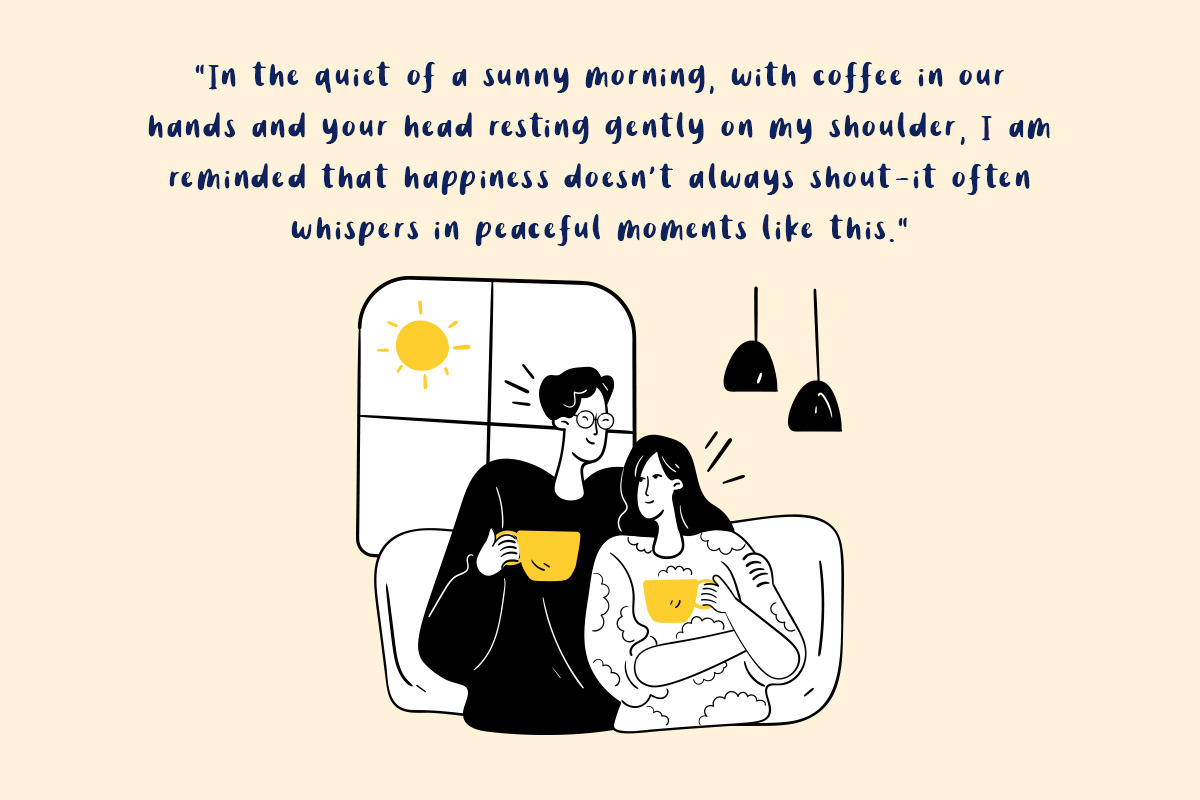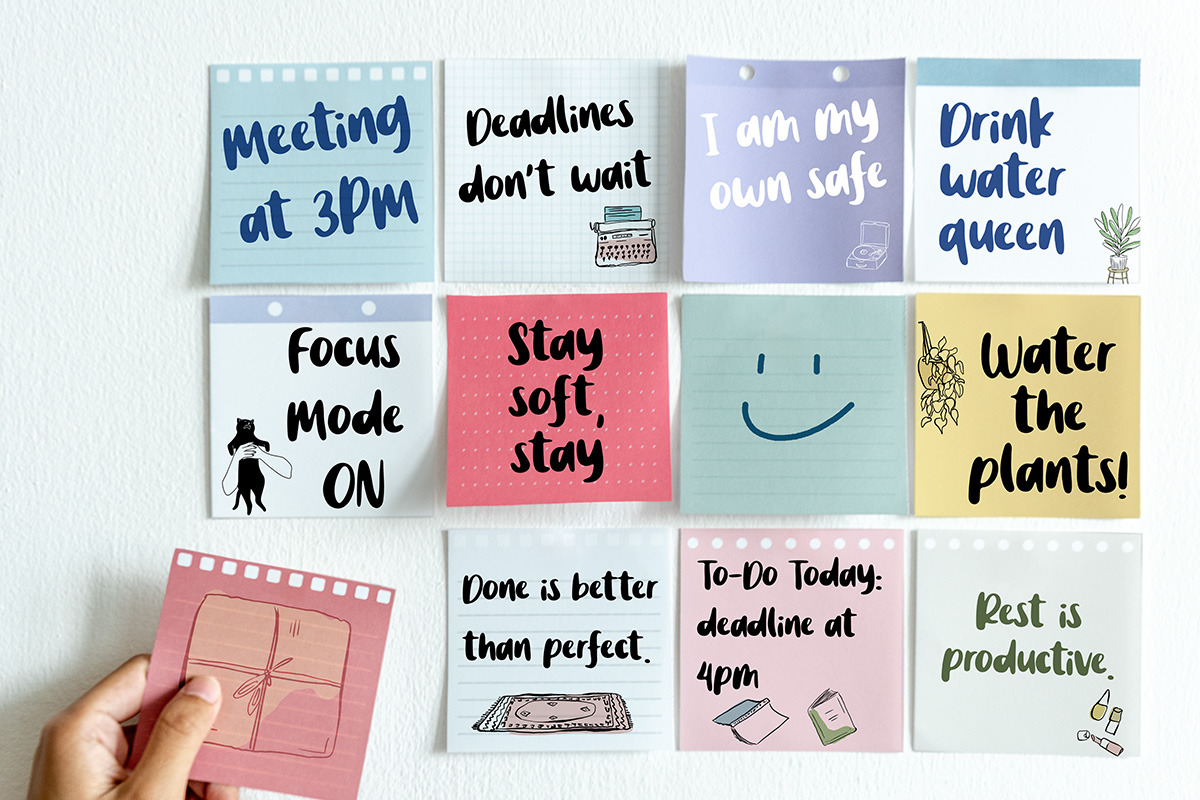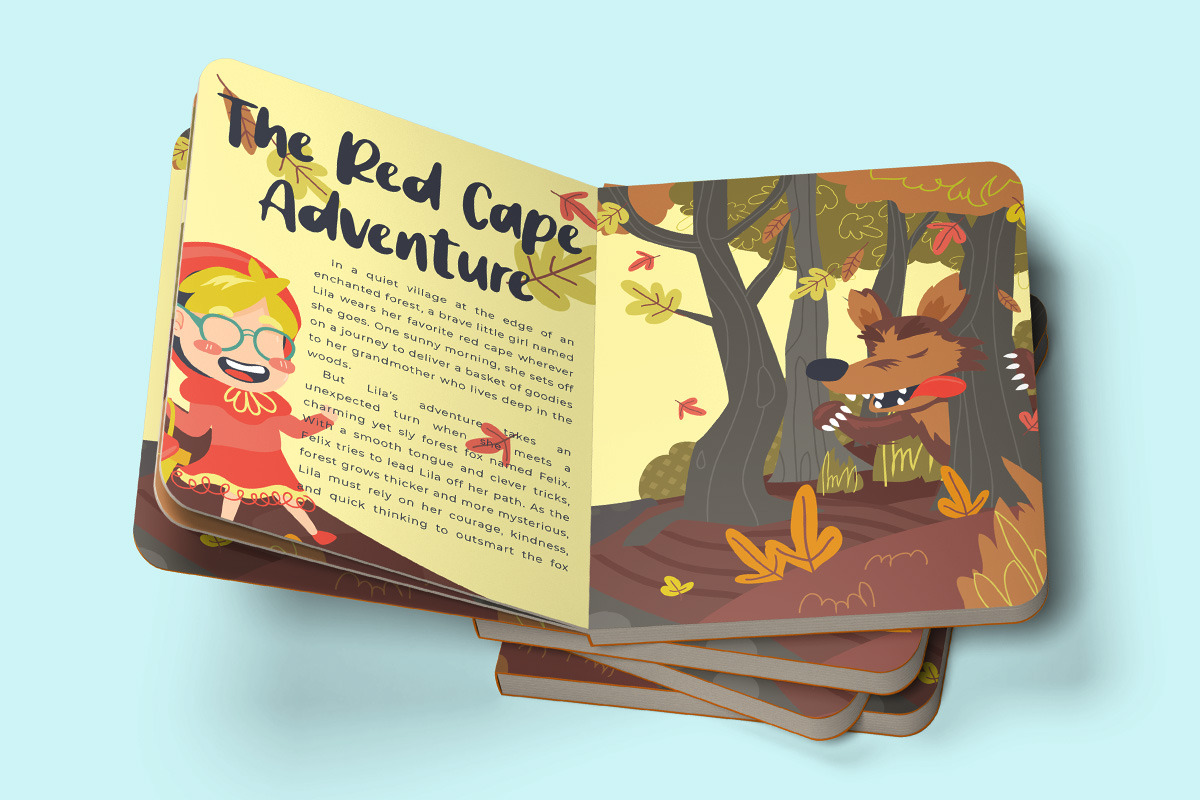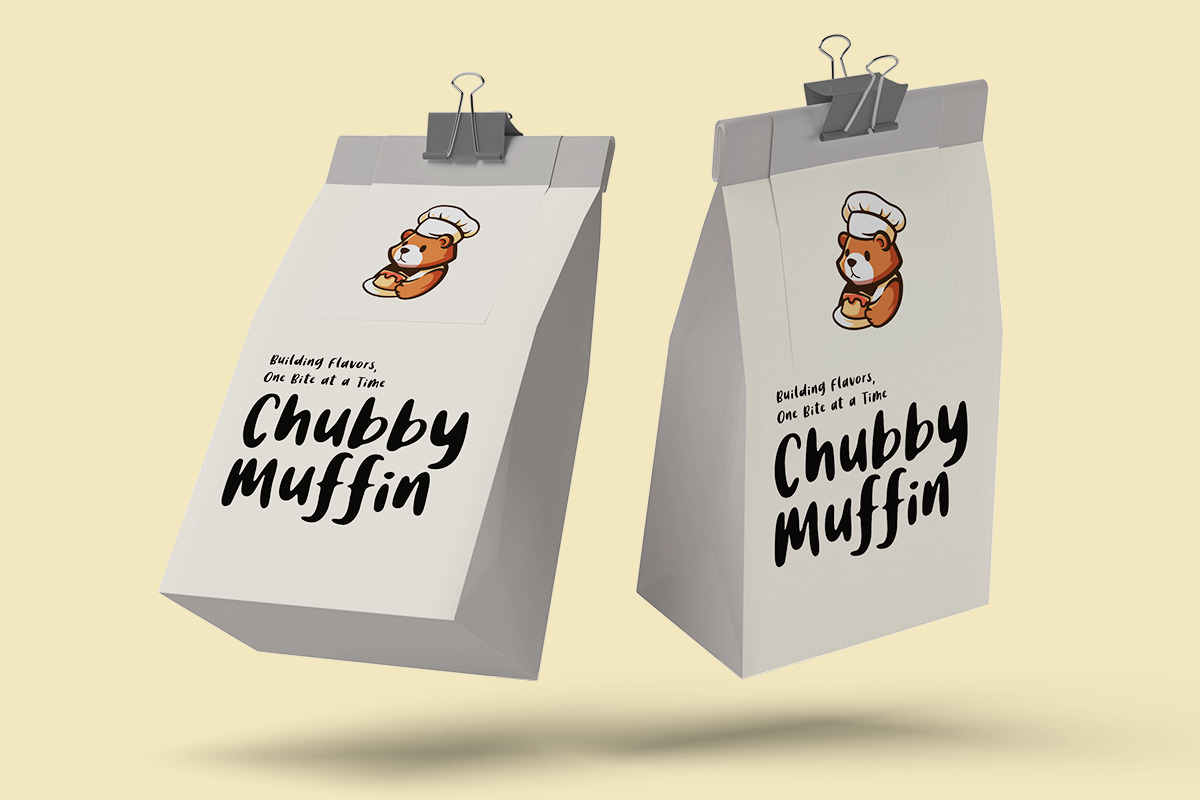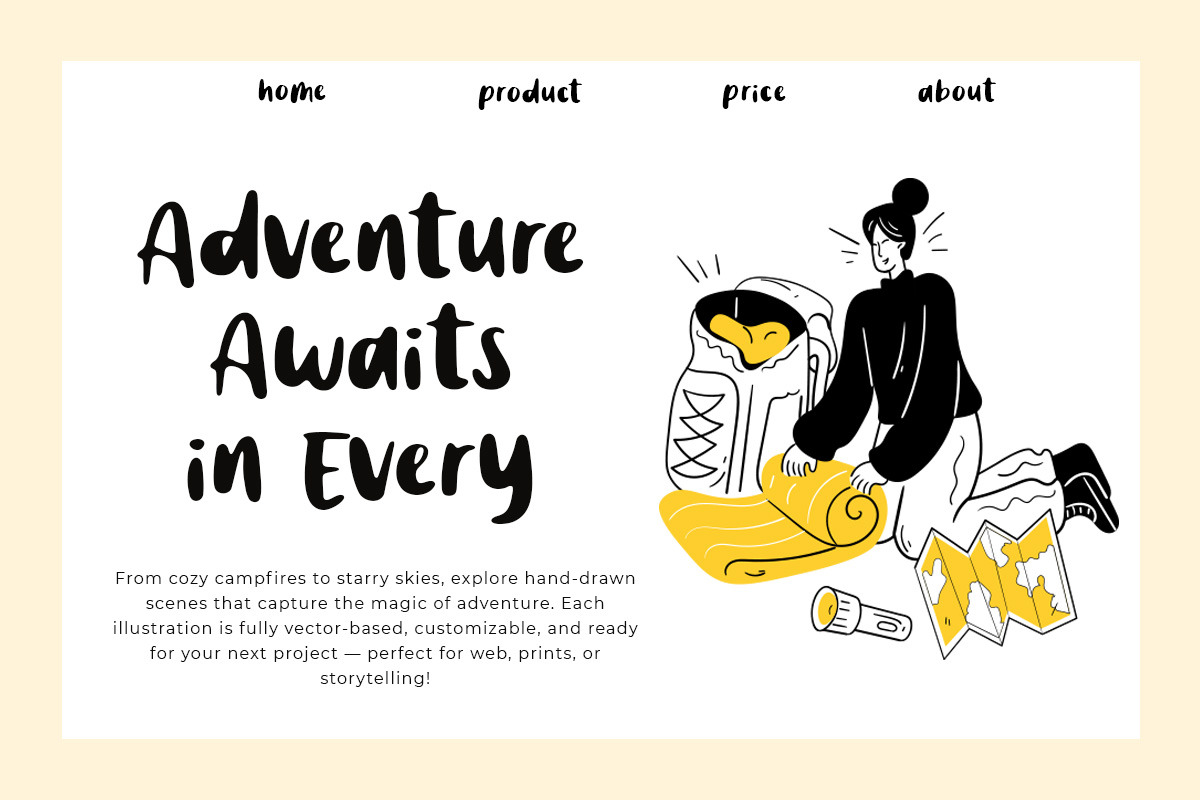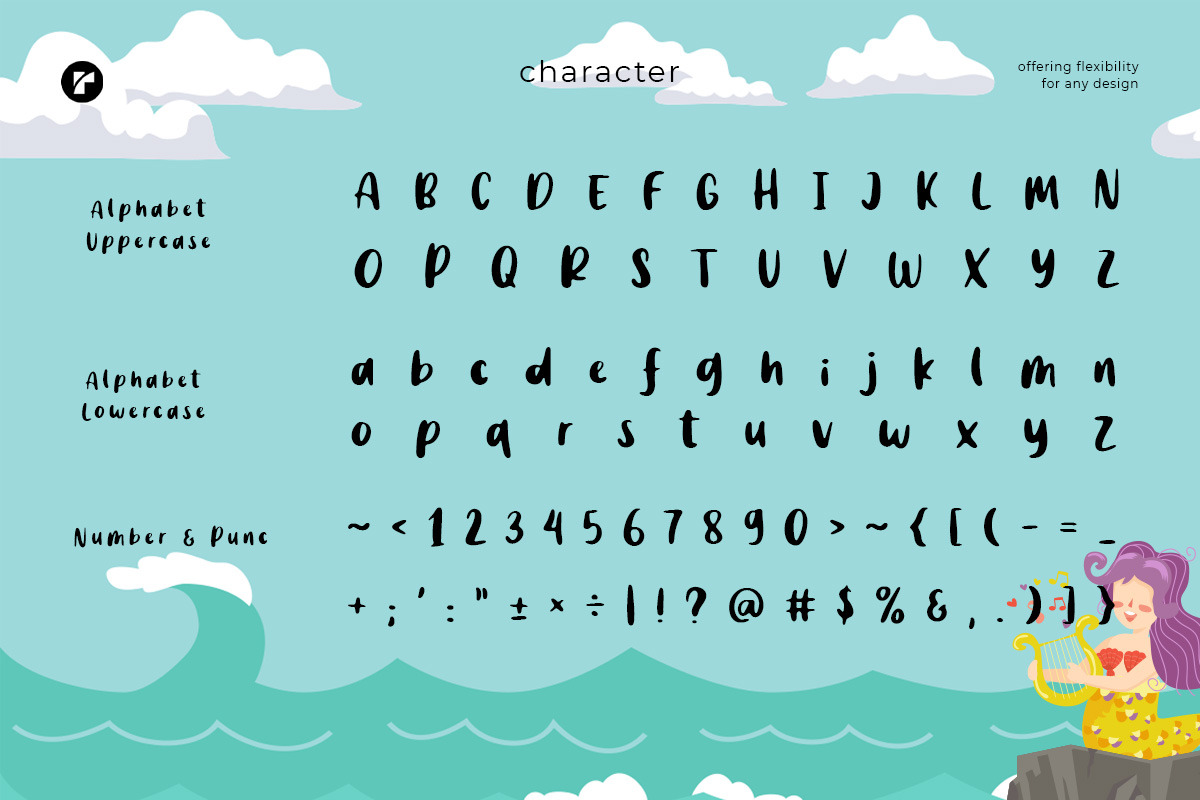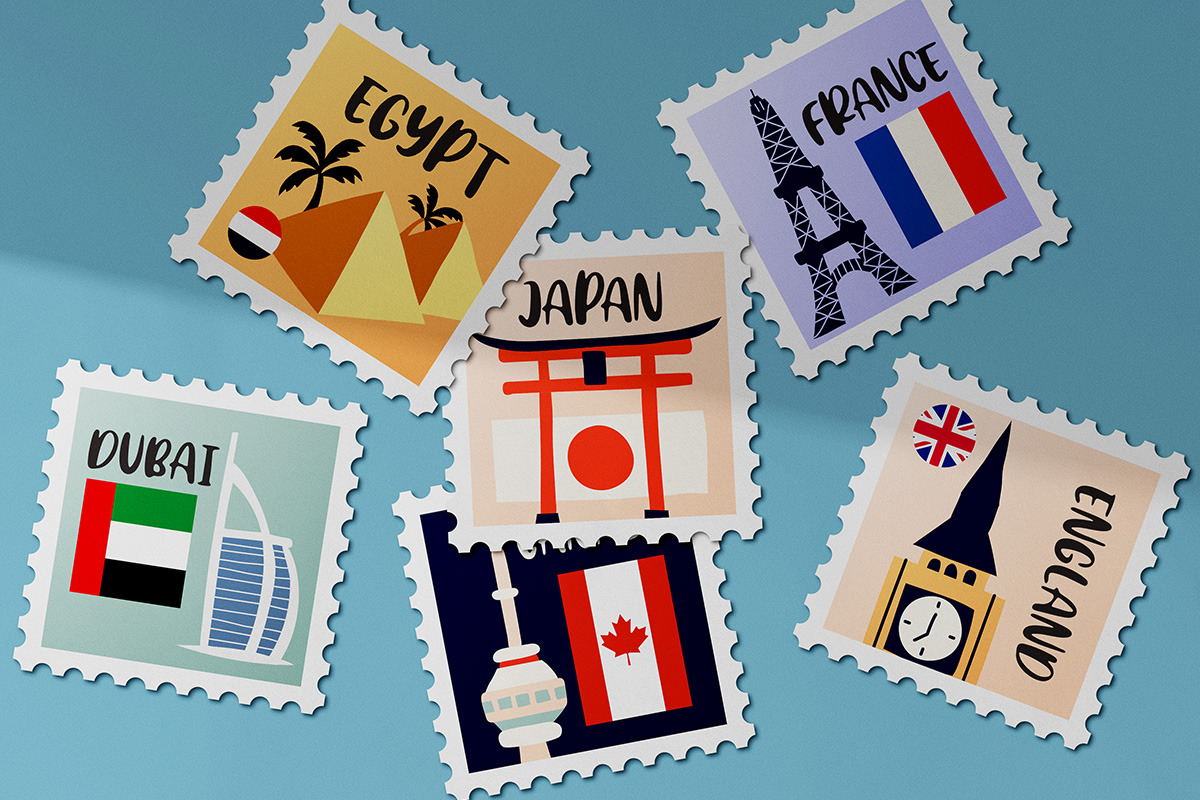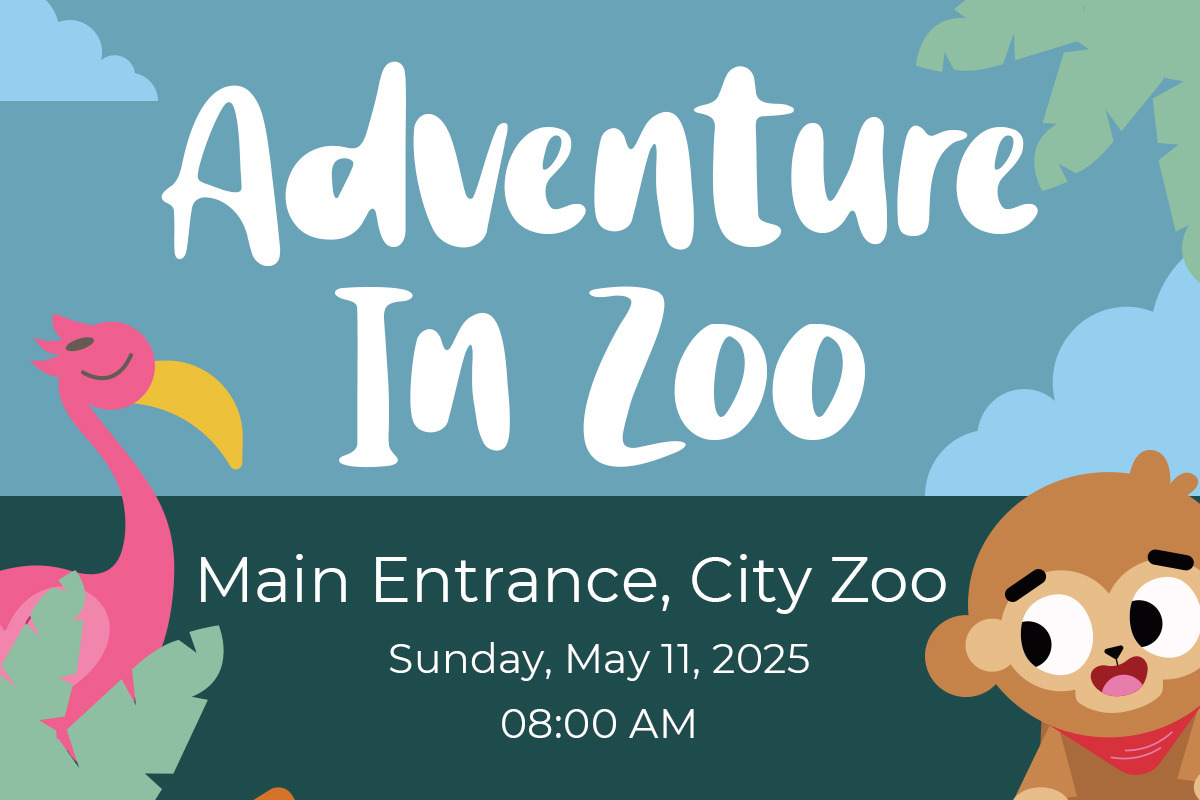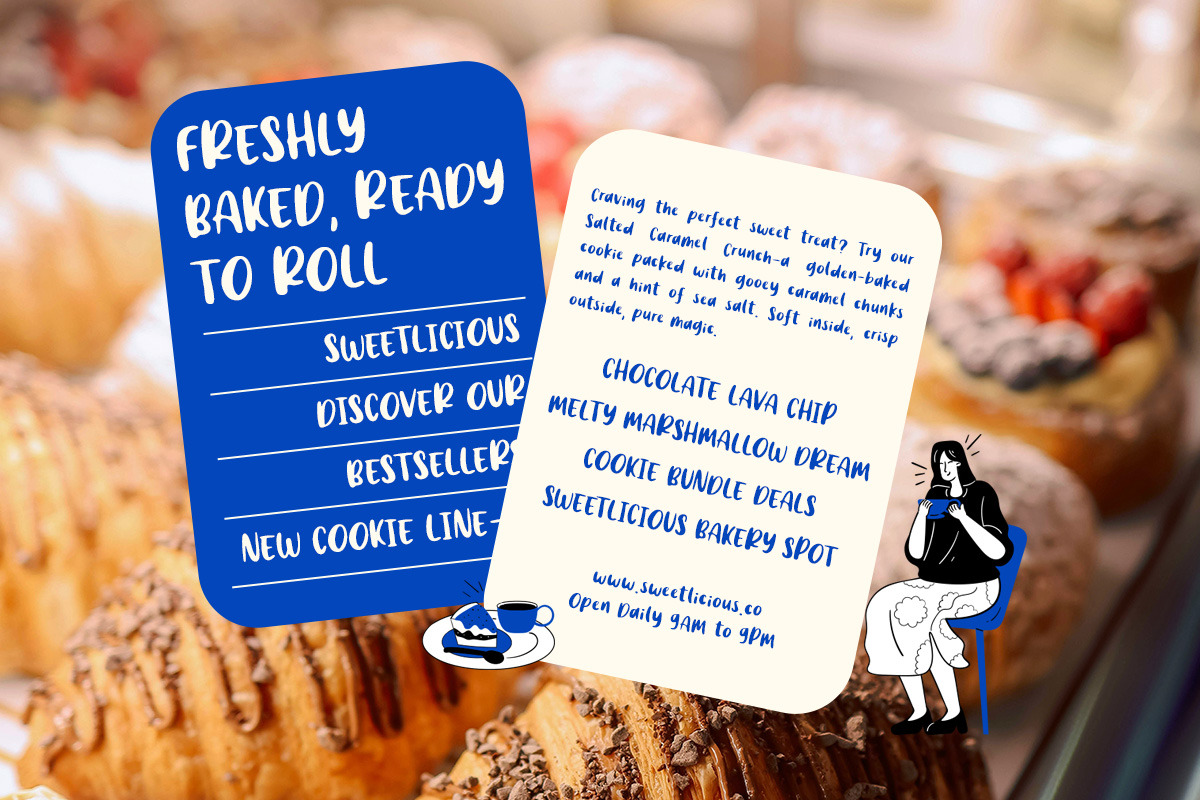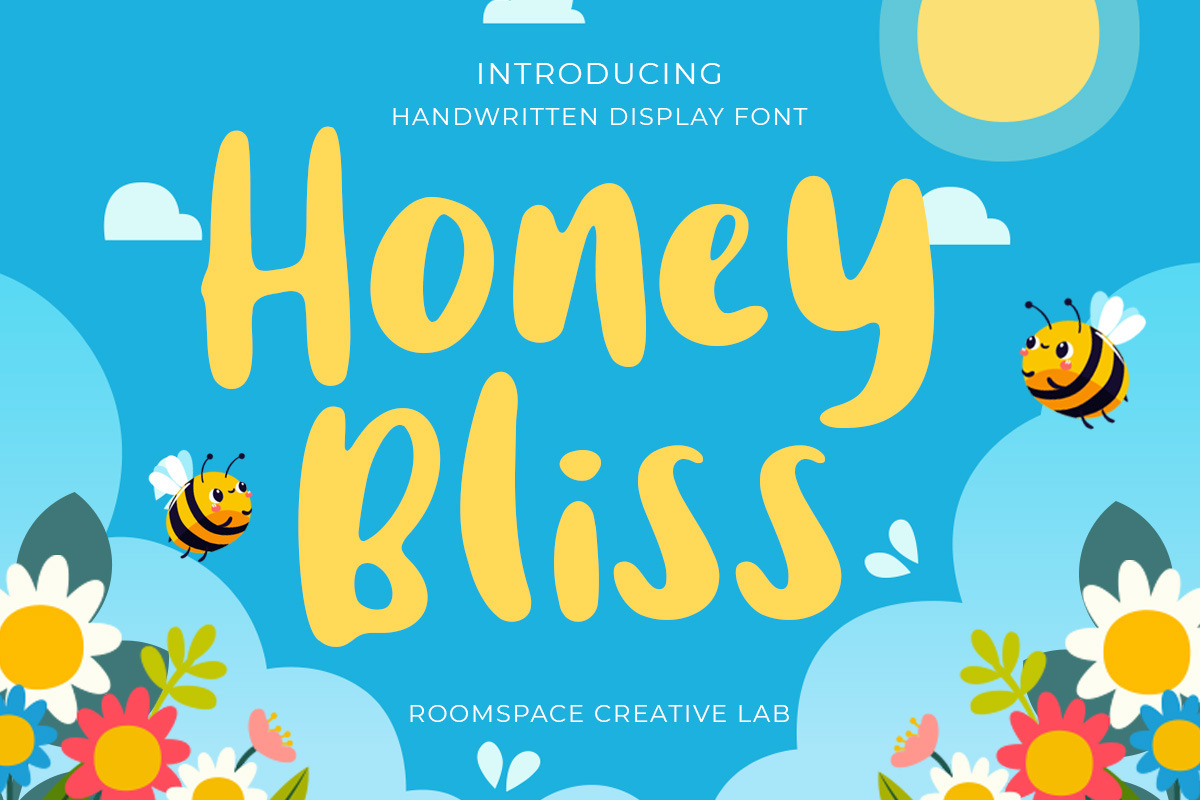
Honey Bliss - Smooth Chunky Font
Honey Bliss is a bold display typeface designed to bring warmth and charisma to your design. Its rounded, energetic letterforms make it an excellent choice for projects that want to make a friendly yet confident visual impact.
Ideal for branding, packaging, logos, and editorial design, Honey Bliss gives your message clarity with a touch of charm and boldness. Whether you're designing for food packaging, lifestyle brands, or modern campaigns, this font brings a unique visual rhythm that draws attention and builds personality.